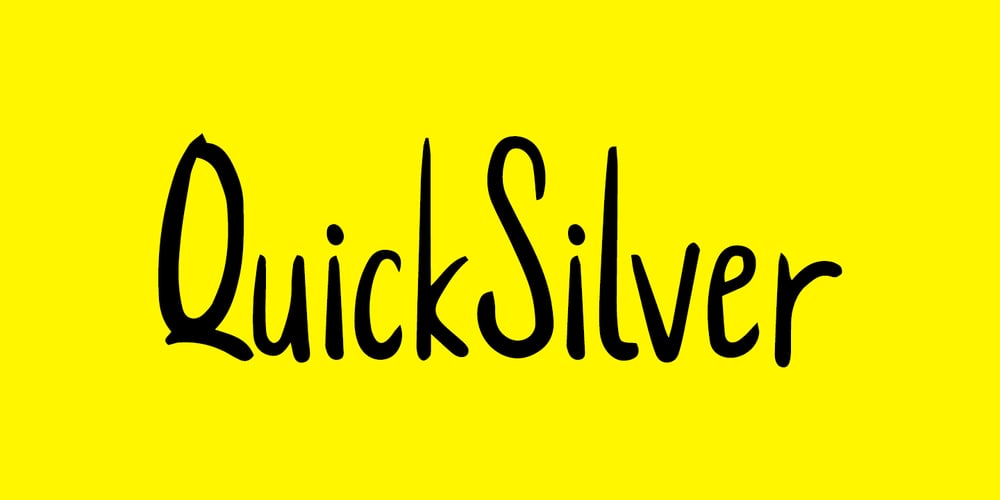
Quick Silver FS Font Family was designed by Lisha Joseph and published by Designova. Quick Silver FS contains 1 styles and family package options. Quick Silver FS is unique, fresh and cute handwritten font for branding / logo design / logotypes / greeting cards / promotional graphics and anything in between. Quick Silver FS is inspired from modern era cartoon titles and completely handmade with passion and perfection.Extended Character SetsAlong with the basic Latin character set, we have added Western European, Central European, South Eastern European character sets for your convenience.Advanced KerningWe have performed advanced, in-depth kerning for all possible letter combinations.What You GetThis font being a handmade typeface, comes with only single weight (Regular). CREDITS: Font designed by Lis at Fontastica, produced by Fontastica, distributed by Designova. Created with ProCreate and Fontself on iPad Pro.